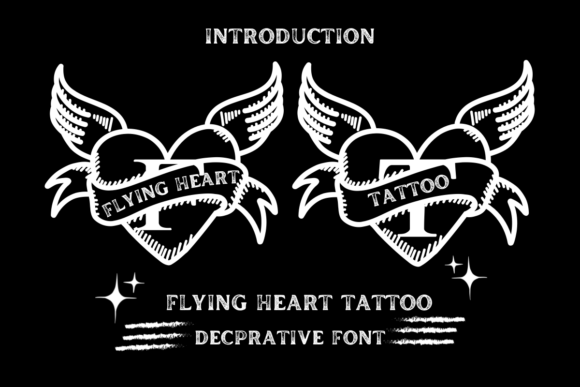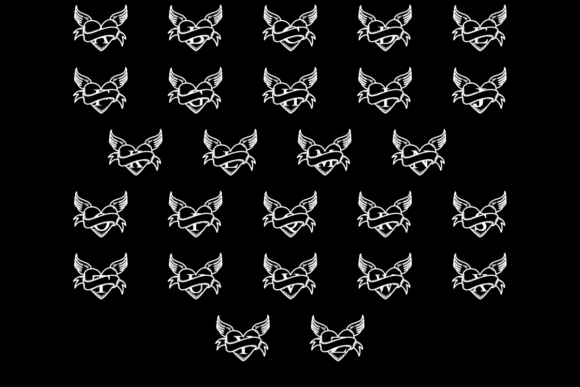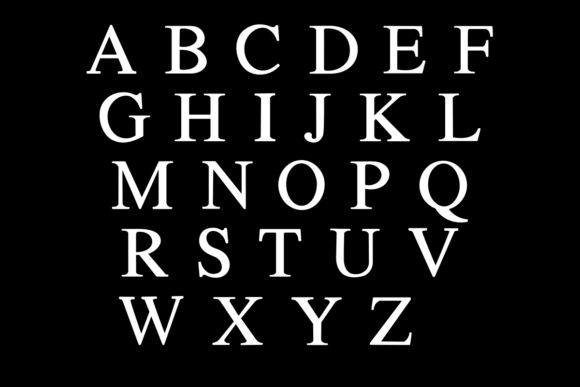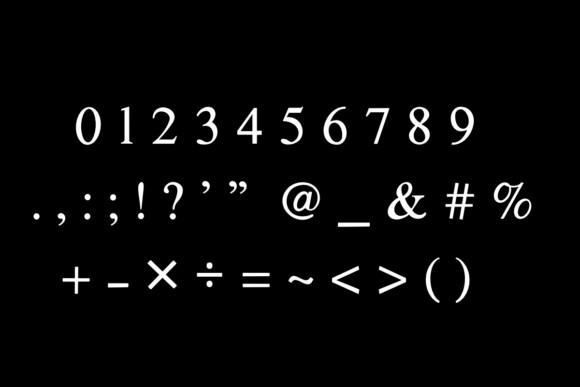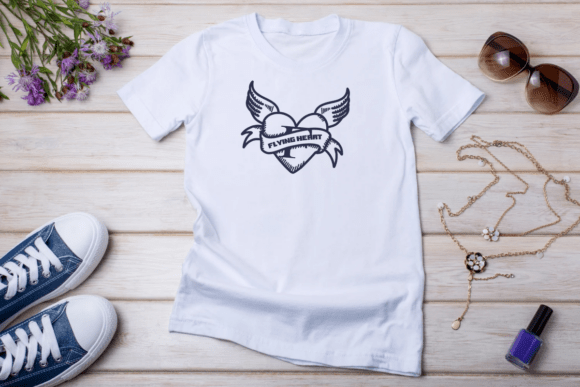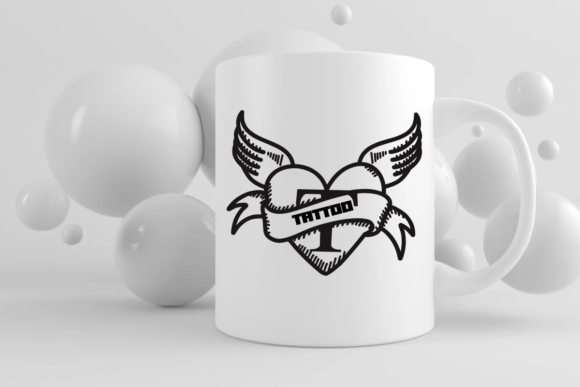
Flying High with Design: Unlocking the Power of Flying Heart Tattoo Font
You know that moment when inspiration strikes, and your creativity starts to soar? It’s like your imagination is taking flight, and anything seems possible. That’s exactly what happened when designers discovered Flying Heart Tattoo Font – a cool and unique decorative font that adds an extra layer of magic to any project.
Whether you’re working on a logo, a graphic novel, or a digital art piece, Flying Heart Tattoo Font is the perfect tool to elevate your design game. This versatile font is not just a pretty face; it’s a powerful addition to any creative project. With its unique aesthetic, Flying Heart Tattoo Font brings a touch of personality to your work, setting it apart from the crowd.
Flying Heart Tattoo Font Key Features
- Unique Hand-Drawn Design: The Flying Heart Tattoo Font is a custom, hand-drawn design that adds a touch of personalization to any tattoo or design project.
- High-Resolution Graphics: The font is designed at 300 DPI, ensuring that it looks sharp and clear even in high-resolution graphics.
- Customizable: The Flying Heart Tattoo Font can be customized to fit your specific design needs, with options for color, size, and style.
- Perfect for Tattoos and Designs: This font is specifically designed for use in tattoo designs, but it can also be used in other creative projects, such as artwork, logos, and more.
Flying Heart Tattoo Font Review
Overall, I think Flying Heart Tattoo Font is a solid choice for any project that requires a bold, playful font. ✨ The unique letterforms and ornate details really make it stand out, and the font’s versatility means it can be used for everything from titles and headings to body text.
Some of the things that work well about this font include:
- Its ability to add a touch of whimsy and personality to a design
- Its wide range of customization options, including color and size variations
- Its seamless compatibility with a variety of design software
However, there are a few limitations to be aware of:
- ⚠️ The font may be difficult to read at very small sizes, which can make it challenging to use in situations where space is limited
- ⚠️ Some users may find the font’s ornate details to be overwhelming or distracting, particularly in large blocks of text
Overall, I think Flying Heart Tattoo Font is a great choice for designers who want to add a bit of flair to their projects. With its unique style and versatility, it’s definitely worth considering for your next design project.
Use the Flying Heart Tattoo Font to create unique and eye-catching designs for:
- Personalized gifts (e.g., t-shirts, mugs, etc.).
- Event invitations (e.g., weddings, birthdays, etc.).
- Branding materials (e.g., logos, business cards, etc.).
The Flying Heart Tattoo Font is perfect for:
- Tattoo designs.
- Edgy and grungy designs.
- Quir
Alternatives to Flying Heart Tattoo Font
Badaboom Font
Badaboom Font is a bold, distressed font with a similar edgy feel to Flying Heart Tattoo Font. It’s ideal for use in punk, rock, or gothic-inspired designs, as well as for creating a vintage or retro aesthetic. While it lacks the whimsical heart elements of Flying Heart Tattoo Font, Badaboom Font’s bold lines and rough texture make it a great alternative for designers looking for a more rugged look.
Rock Salt Font
Rock Salt Font is a distressed font with a more subtle, worn look compared to Flying Heart Tattoo Font. It’s suitable for use in designs that require a sense of aged, weathered texture, such as for outdoor or industrial-themed projects. Rock Salt Font is a good choice when you need a more understated, distressed look that still conveys a sense of grit and character.